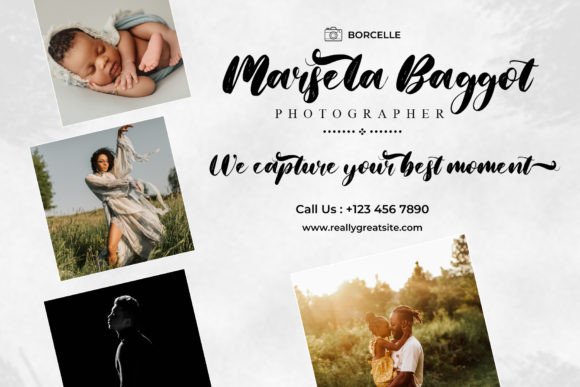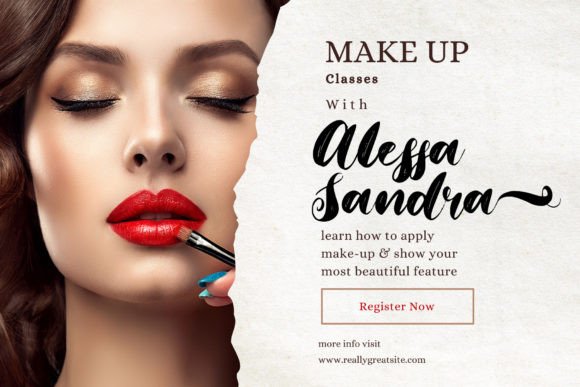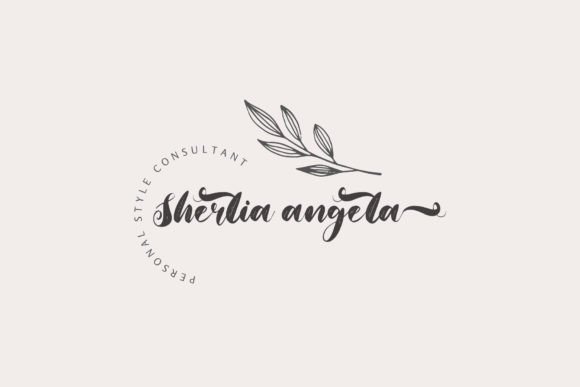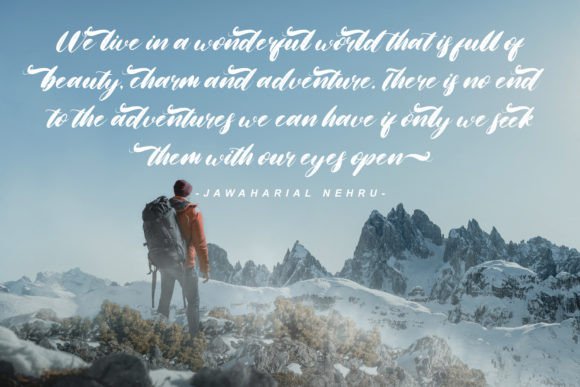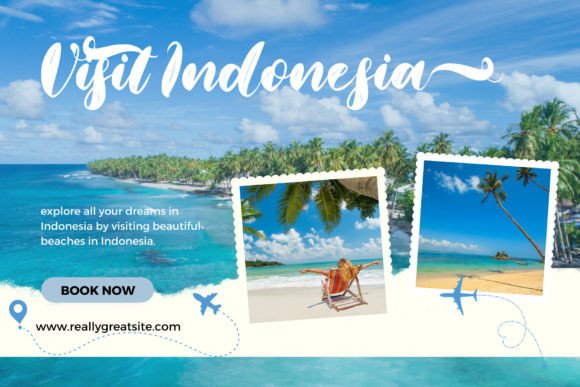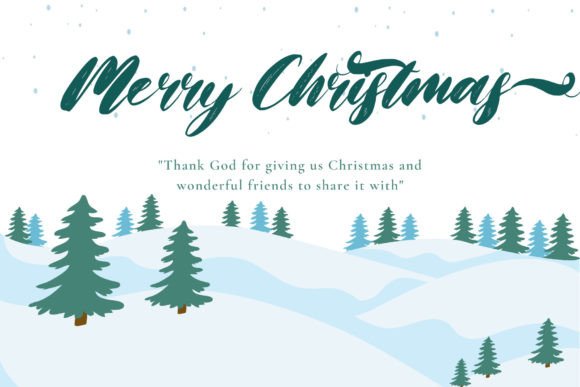
Introducing Christmas Blessed Font: The Ultimate Holiday Typography
Are you looking for a font that captures the essence of the Christmas season? Do you want to create stunning logos, branding, and quotes that leave a lasting impression? Look no further than Christmas Blessed Font, a dazzling and timeless handwritten font that’s perfect for the holiday season.
What Makes Christmas Blessed Font So Special?
Christmas Blessed Font is a unique and elegant handwritten font that’s specifically designed to add a touch of festive flair to your designs. Its classic and sophisticated style makes it an excellent choice for creating logos, branding, and quotes that exude warmth and joy.
One of the standout features of Christmas Blessed Font is its PUA (Private Use Area) encoding. This means that you can access all the glyphs and swashes easily, giving you complete creative control over your designs. Whether you’re a designer, crafter, or DIY enthusiast, this font is sure to become your go-to choice for all your Christmas design needs.
Christmas Blessed Font is a versatile font that’s perfect for a wide range of design applications. Here are just a few ways you can use this amazing font:
- Logos and Branding: Create stunning logos and branding materials that capture the essence of the Christmas season. From festive holiday logos to elegant gift tags, Christmas Blessed Font is the perfect choice.
- Quotes and Posters: Add a touch of elegance to your quotes and posters with Christmas Blessed Font. This font is perfect for creating inspiring and uplifting messages that spread holiday cheer.
- Card Making and Scrapbooking: Take your card making and scrapbooking to the next level with Christmas Blessed Font. This font is perfect for creating beautiful and personalized holiday cards, gift tags, and scrapbook pages.
- Digital Designs: Use Christmas Blessed Font to create stunning digital designs, including social media graphics, blog posts, and website headers.
Key Features of Christmas Blessed Font
Here are some of the key features that make Christmas Blessed Font so special:
- PUA Encoded: Access all glyphs and swashes easily with PUA encoding.
- Handwritten Style: Elegant and classic handwritten font perfect for the Christmas season.
- Versatile: Suitable for a wide range of design applications, from logos and branding to quotes and posters.
Get Creative with Christmas Blessed Font
With Christmas Blessed Font, the creative possibilities are endless. Here are a few ideas to get you started:
- Create a Festive Logo: Use Christmas Blessed Font to create a stunning logo for your holiday-themed business or event.
- Make a Beautiful Christmas Card: Design a personalized Christmas card with Christmas Blessed Font and make it a treasured keepsake.
- Design a Holiday Gift Tag: Add a touch of elegance to your gift tags with Christmas Blessed Font and make your gifts stand out.
Christmas Blessed Font is a truly special font that’s perfect for the holiday season. With its elegant handwritten style, PUA encoding, and versatility, it’s an excellent choice for designers, crafters, and DIY enthusiasts. Whether you’re looking to create logos, branding, quotes, or digital designs, Christmas Blessed Font is sure to become your go-to choice. So why wait? Get creative with Christmas Blessed Font today and make your holiday designs shine!